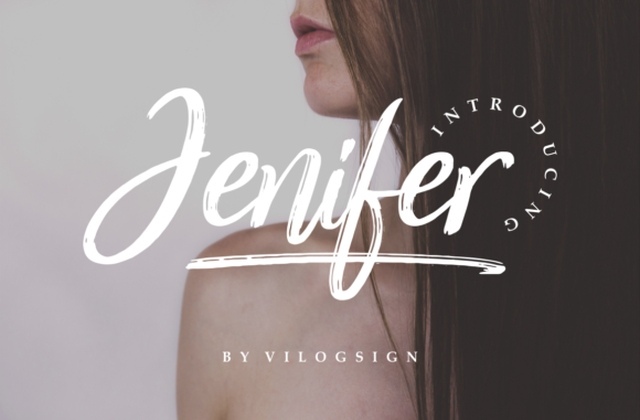
Jenifer Font
Jenifer Font is perfect for various design applications including personal branding services, friendly lifestyle blogs, approachable wellness centers, warm hospitality brands, personal coaching materials, family-oriented business communications, welcoming beauty salon signage, personable service provider logos, heartfelt greeting card designs, and authentic relationship-focused brand identities. This charming typeface excels in projects requiring personal warmth and approachable femininity that captures the genuine kindness and relatable charm of personal connection and authentic human interaction.
What makes Jenifer Font so exciting is its tender embodiment of personal warmth and approachable femininity through letterforms that suggest handwritten notes and the genuine care of personal attention. The font features gentle flowing construction that mirrors natural handwriting, friendly proportions that communicate approachability and personal warmth, and distinctive character details that evoke the personal touch and individual attention that defines exceptional personal service. Its distinctive personal character and feminine appeal make it perfect for service-oriented brands seeking to communicate authenticity, personal care, and the kind of genuine human connection that creates lasting relationships and trust.
Jenifer Font family includes warm weights and personal variations that enhance its versatility for different relationship-focused applications. Each style maintains the font's signature personal character while providing options for various friendly design approaches. The family also features personal decorative elements, warm flourishes, and connection-inspired ornaments that can be combined with the letterforms to create cohesive personal relationship design systems.
Whether you're developing personal service brands, relationship-focused communications, or warm lifestyle projects, Jenifer Font Free Download provides heartfelt typography that creates genuine personal connections and celebrates the irreplaceable value of individual attention and authentic human care. This typeface transforms ordinary communications into personal conversations that promise individual attention and genuine caring. The font's personal appeal makes it particularly effective for personal coaches, wellness practitioners, and service providers targeting clients who value personal relationships and authentic individual attention.
Jenifer Font stands out by delivering authentic personal warmth that feels genuinely caring rather than artificially friendly or professionally manufactured. Its carefully crafted personal proportions and warm details ensure that designs feel authentically connected to real human relationships while maintaining professional credibility and approachable charm. From personal service branding to relationship-focused communications, this font provides designers with tools to create communications that celebrate personal connection and inspire appreciation for individual care through warm, personally-inspired typography that creates lasting bonds between service providers and clients.